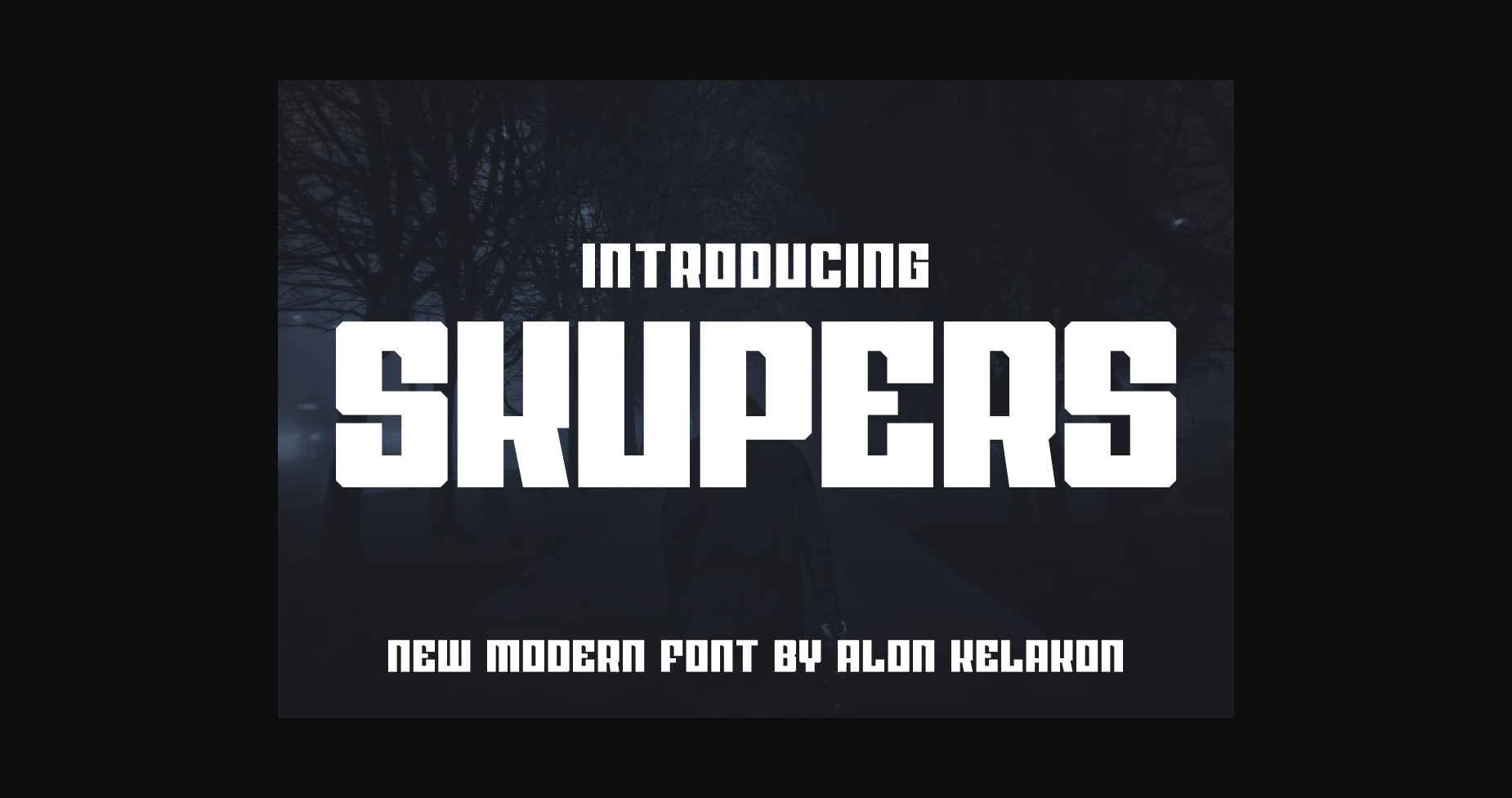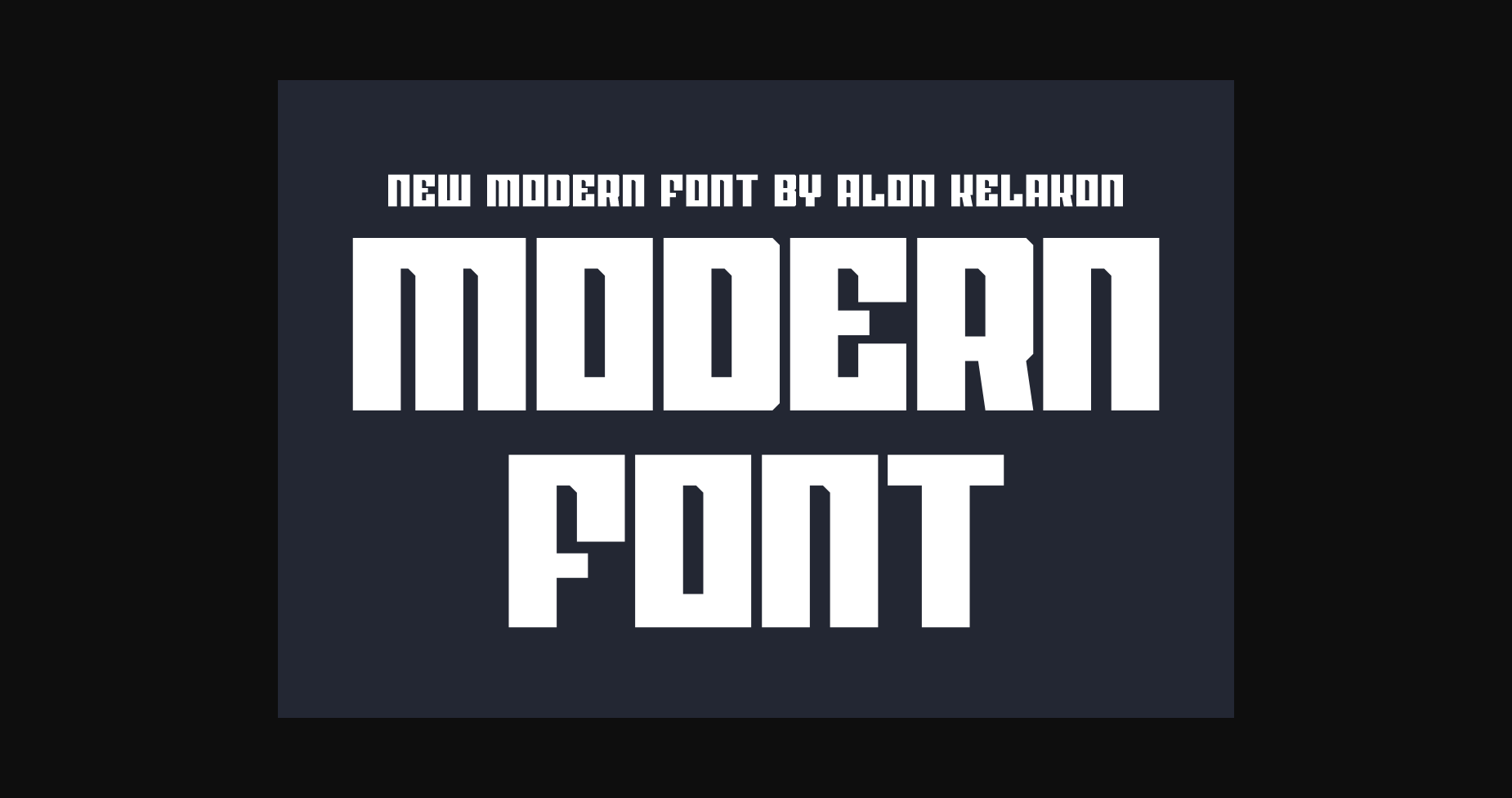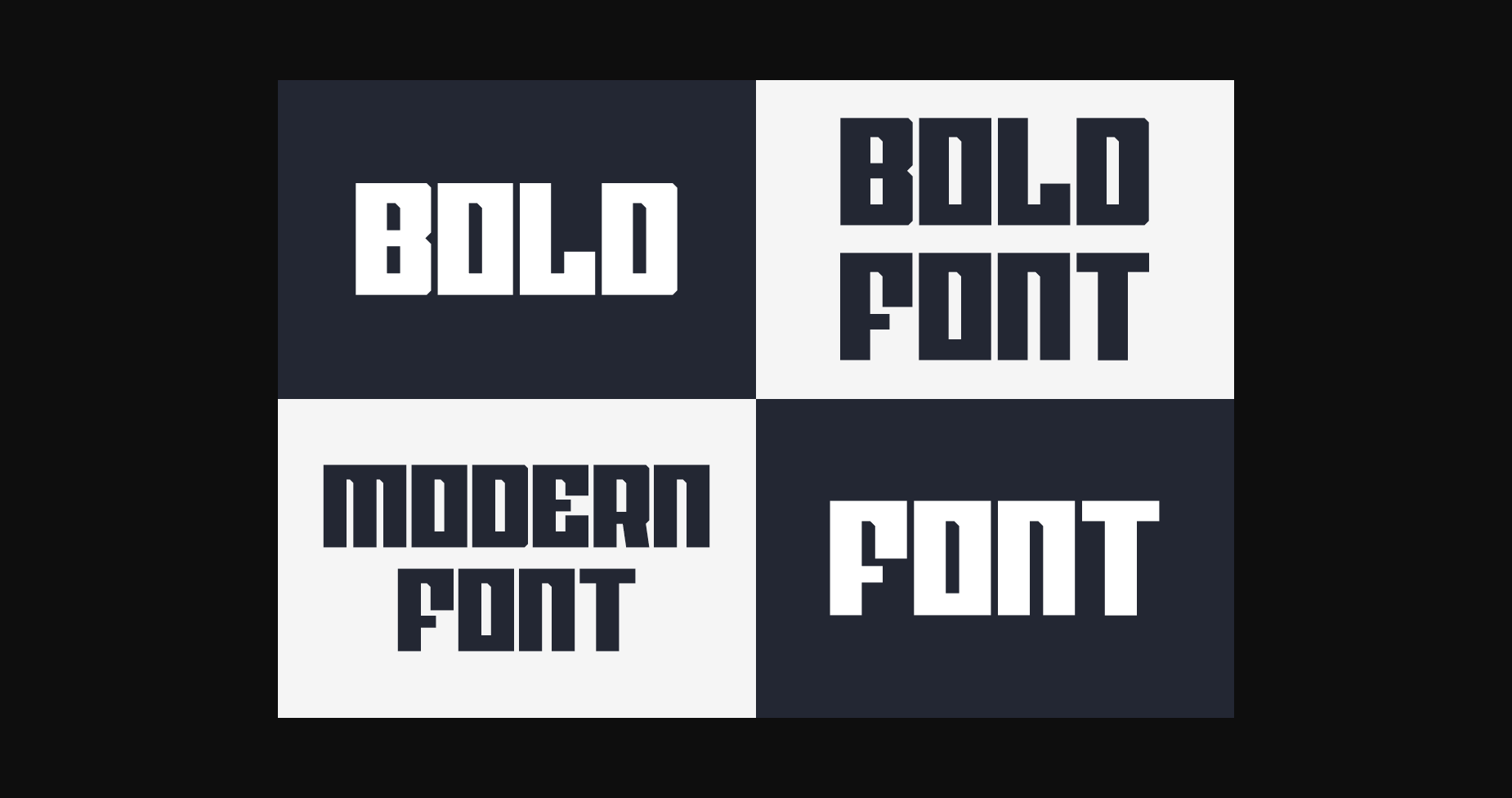
About Skupers Font
Skupers is a unique and attractive font. Ready to use for your design like labeling, clothing, movie scenes, poster, movie title, gigs, album covers, logos, and much more.